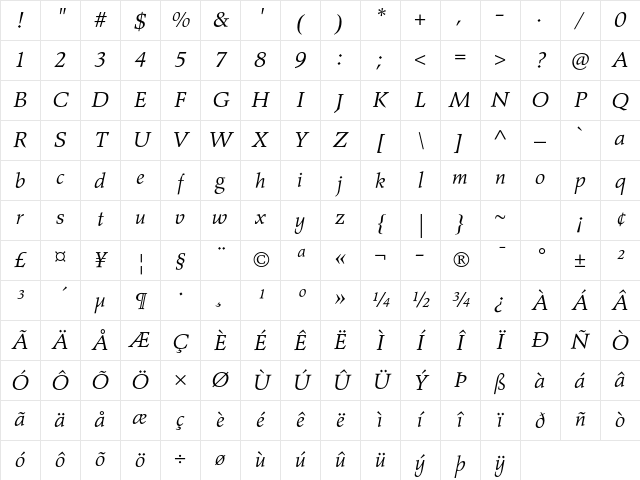
Agfa Wile Roman Std Italic
Design Context for Agfa Wile Roman Std
Agfa Wile Roman Std is a composed and adaptable typeface that performs quietly and consistently across a wide range of design contexts. The slanted form adds forward momentum and visual energy.